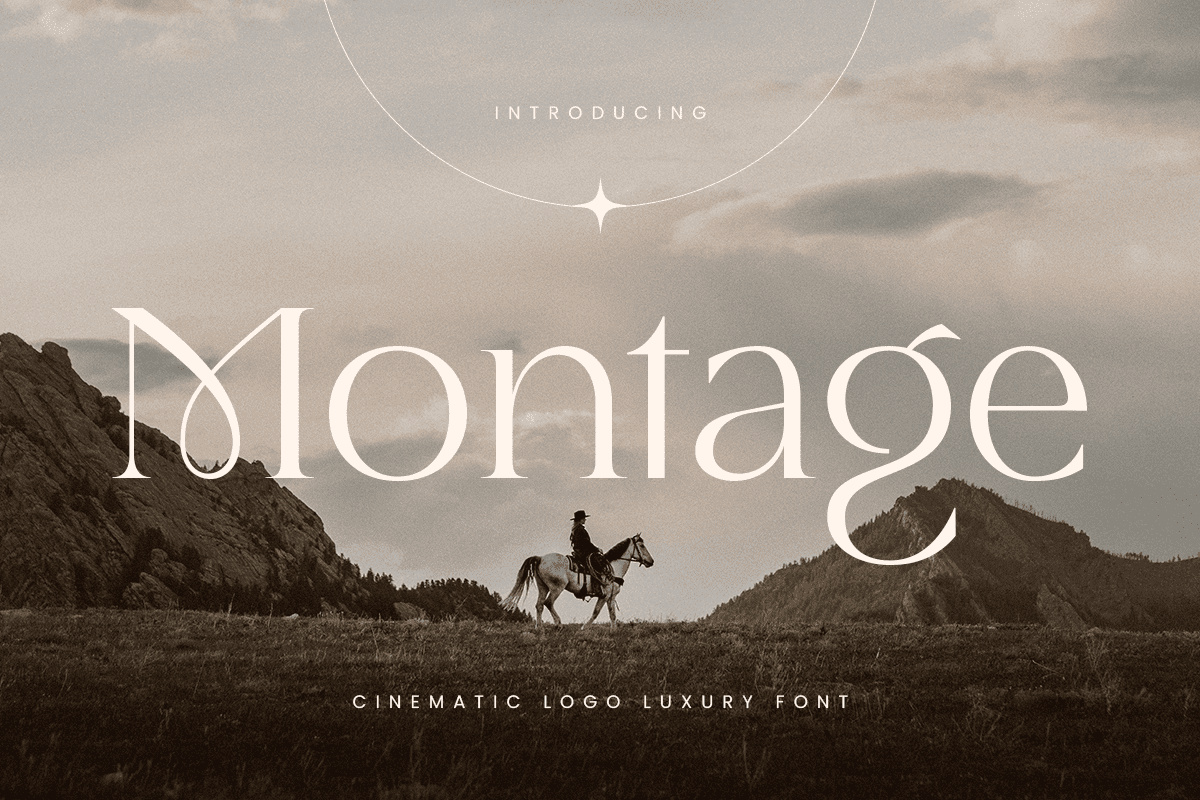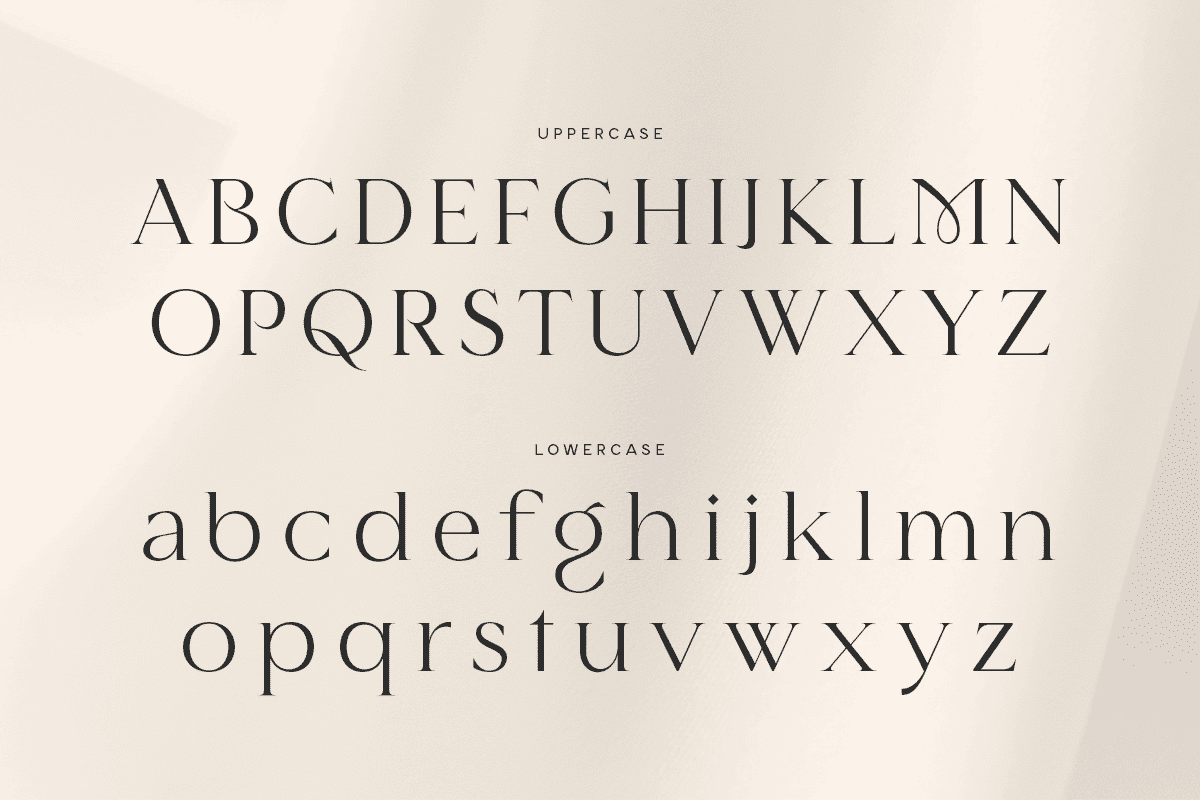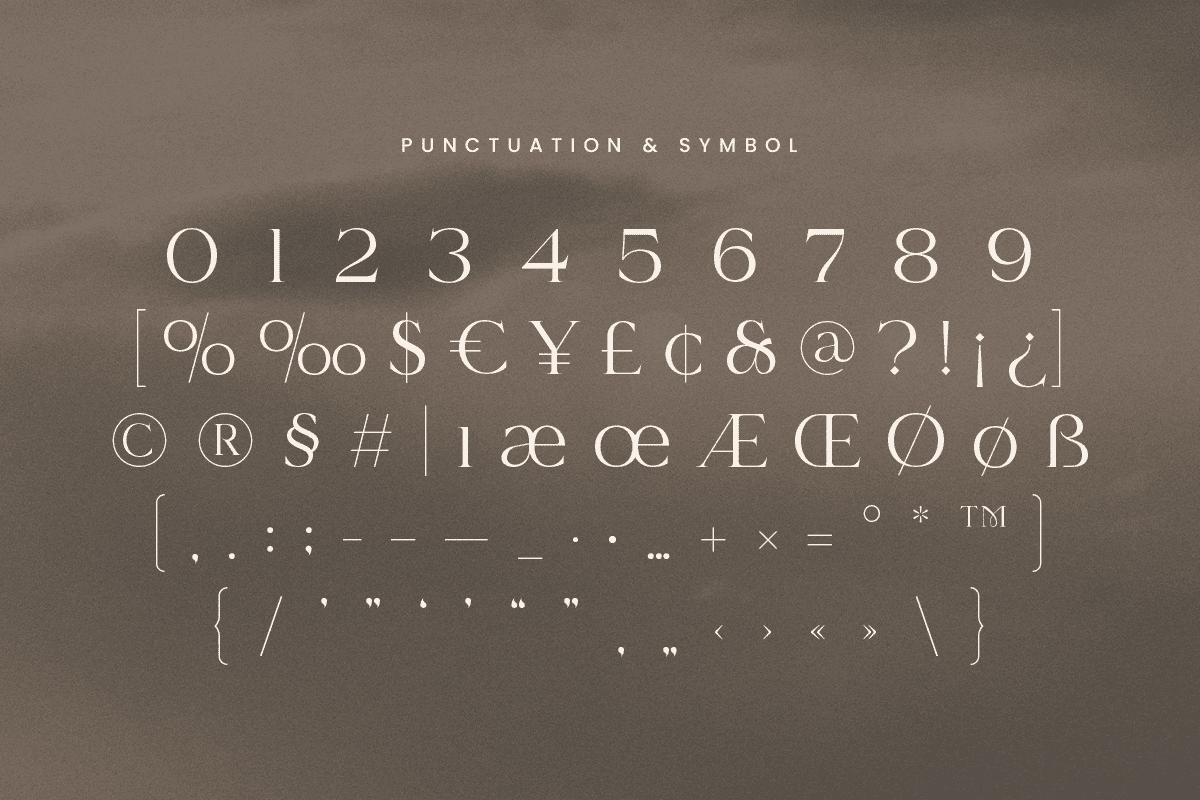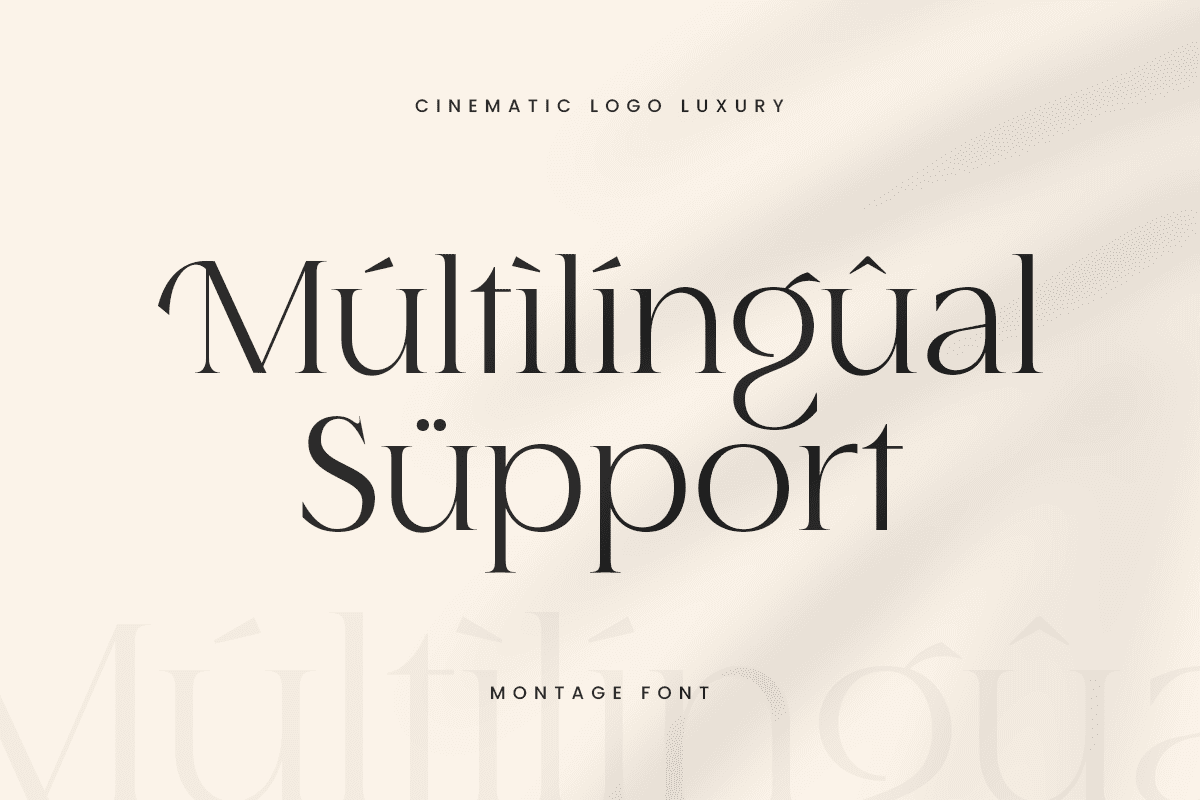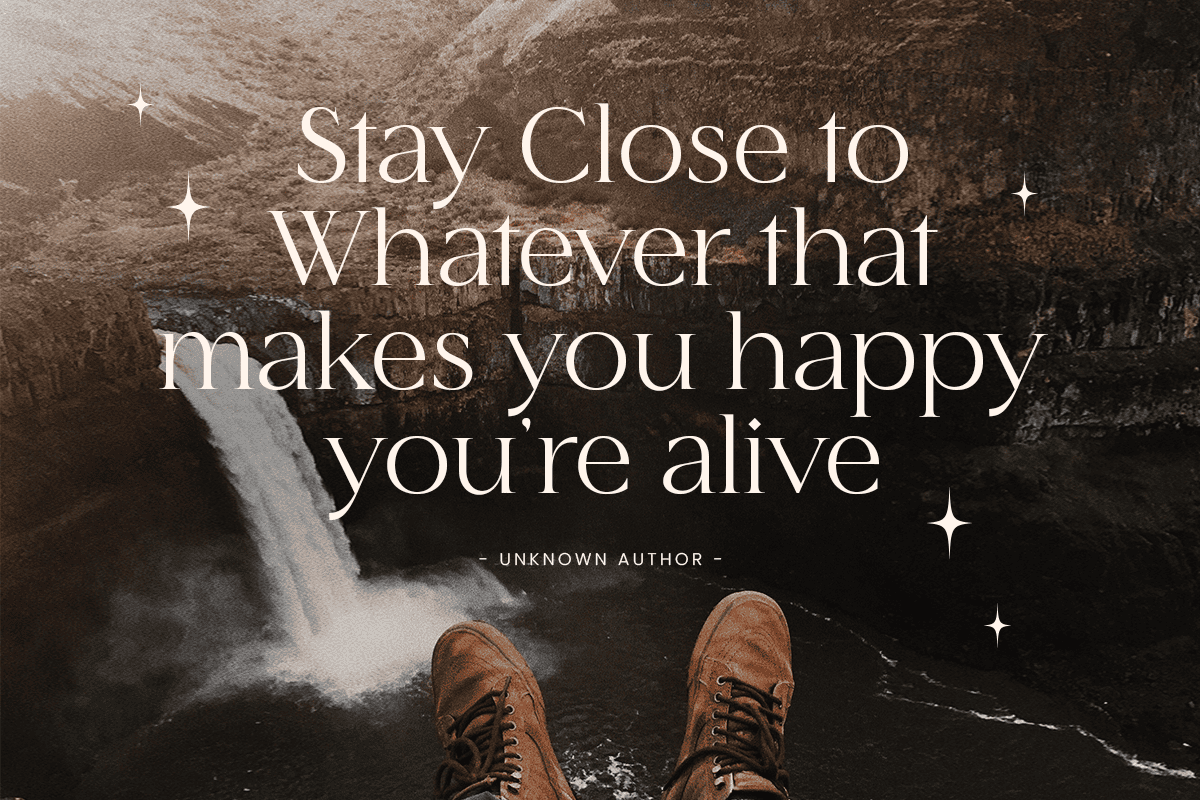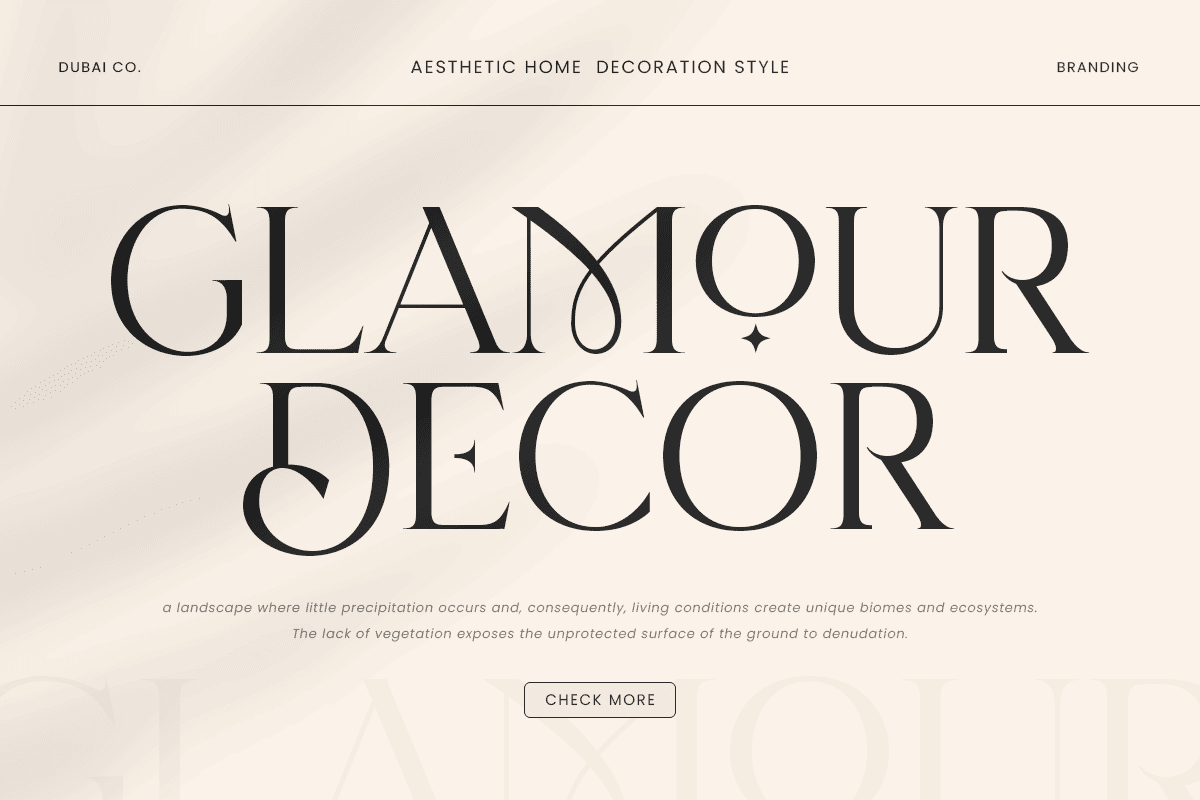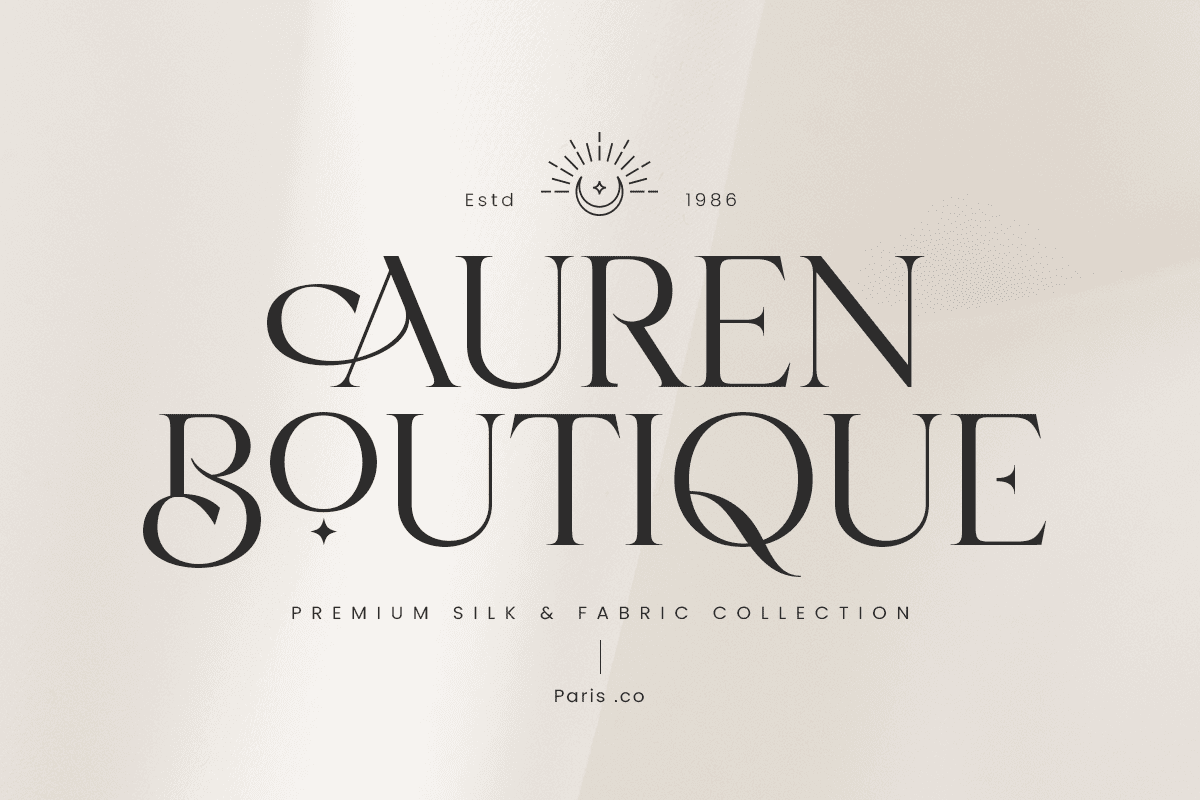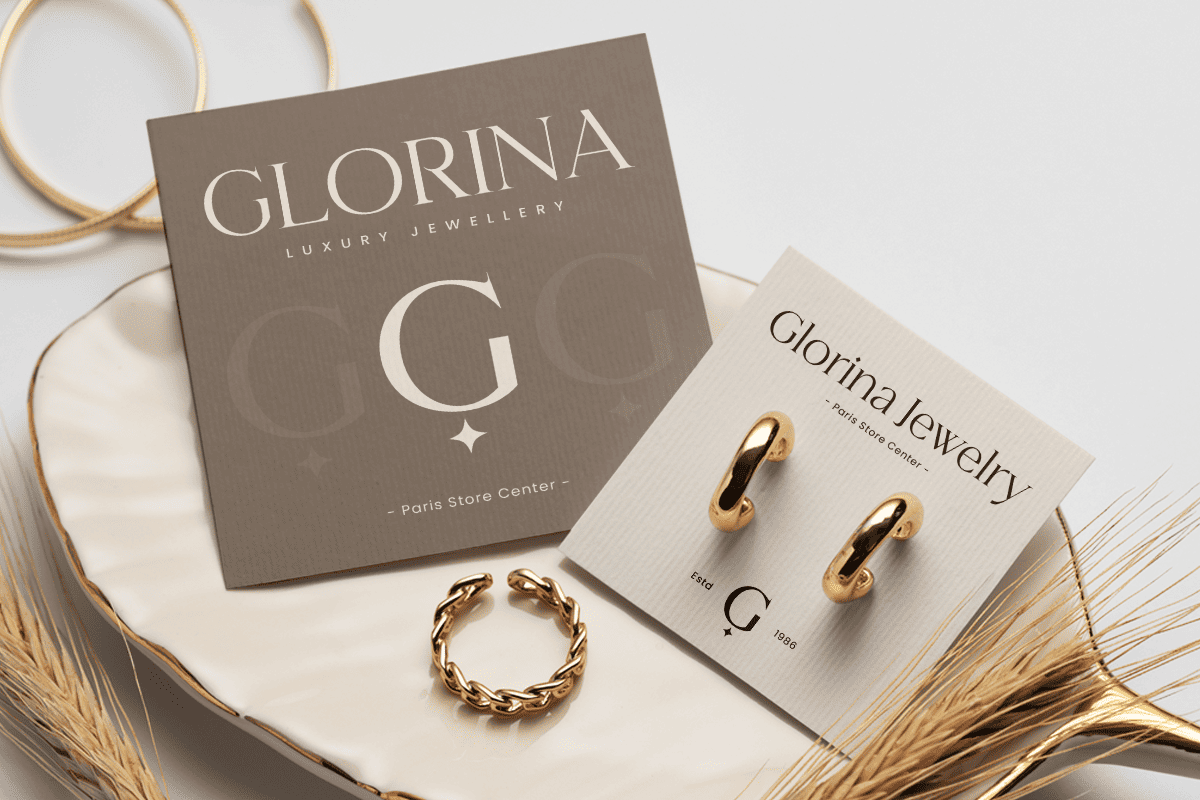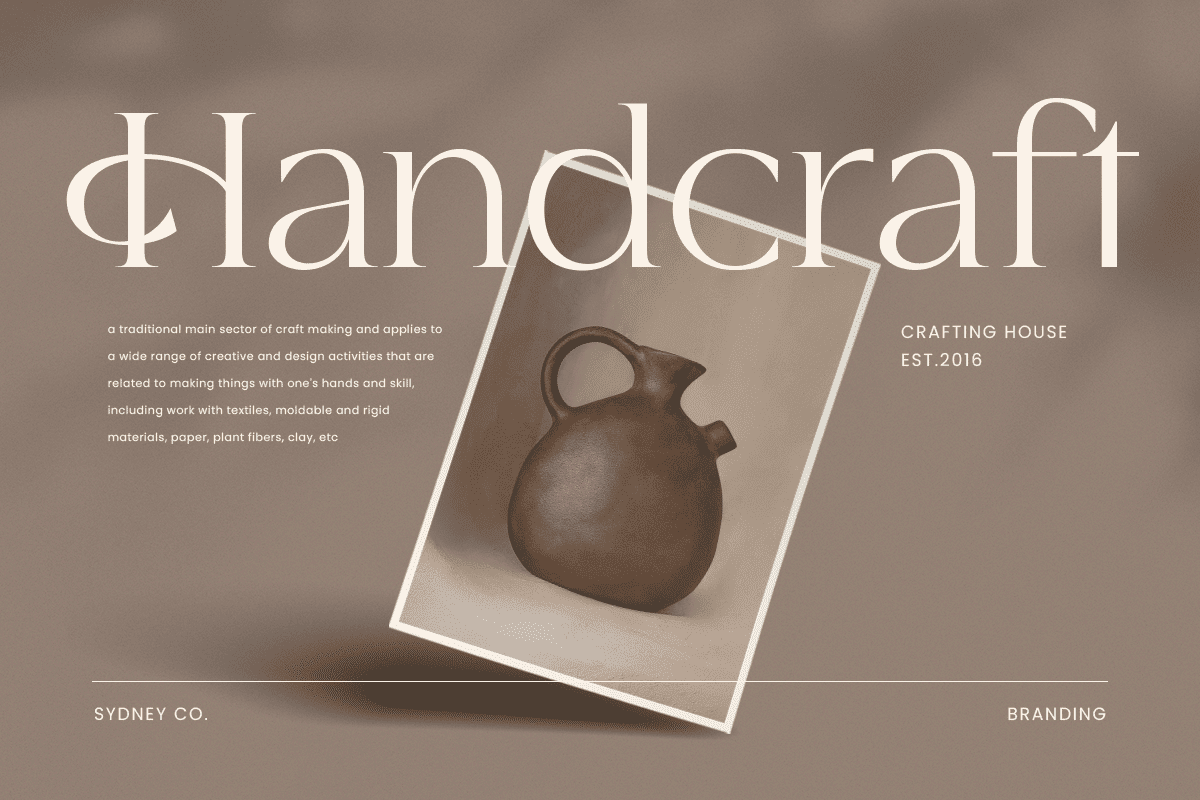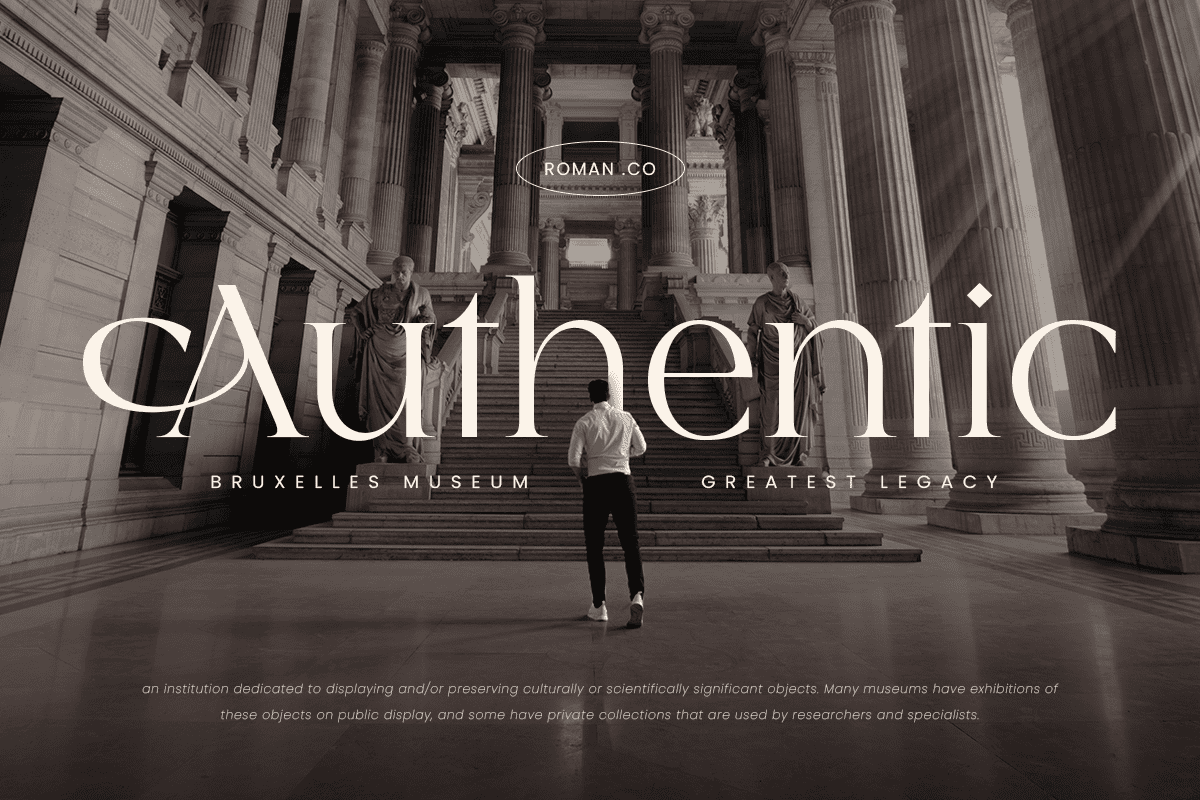
Montage
-Luxury Cinematic Logo FontMontage is a luxury cinematic font designed to bring elegance and sophistication to your high-end design projects. Inspired by the timeless beauty of classic cinema and the luxurious feel of high-end brands, Montage combines modern aesthetics with a touch of vintage glamour. This font is perfect for creating stunning logos, refined branding materials, and stylish designs that demand attention.
The Story Behind Montage:
Montage was crafted to embody the essence of luxury and cinematic allure. The font draws inspiration from the elegance of classic films and the sophistication of luxury brands. Whether you're working on a high-end logo, branding for a premium product, or creating cinematic posters, Montage provides the perfect blend of style and grace.
Montage Font Features:
Elegant Design: Perfect for luxury branding, cinematic posters, and high-end projects.
Versatile Usage: Ideal for logos, branding, headlines, and stylish designs.
High Legibility: Ensures your message is communicated effectively with clear and sharp lettering.
Cinematic Appeal: Combines modern aesthetics with a vintage touch to create a unique and memorable look.
Inspirational Previews: Includes sample designs to spark your creativity and show the font's potential.
Elevate your design projects with Montage and bring a touch of cinematic luxury to your work.